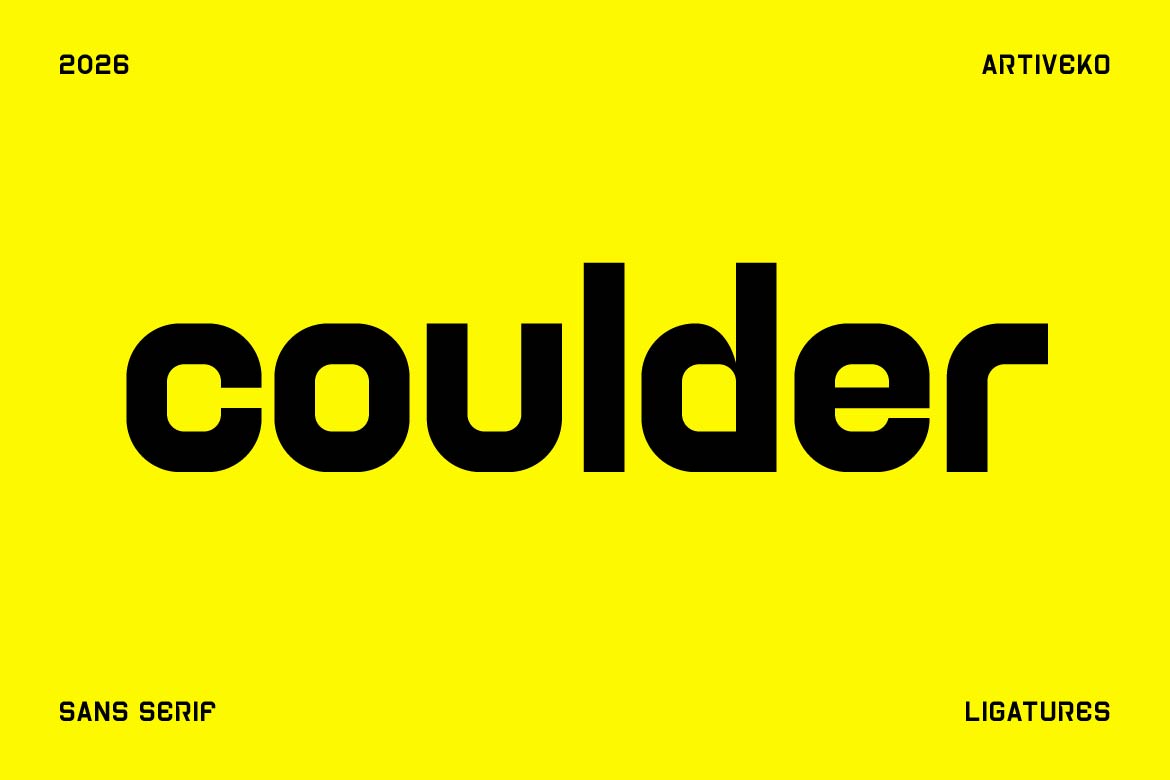
- Coulder – Clean Creative Font for Visual Identity & Design
Coulder is a modern creative sans serif typeface designed to bring fresh energy and clarity to contemporary design. With clean structure, balanced proportions, and subtle character details, Coulder offers a perfect blend of professionalism and creative personality.
This font works beautifully for branding, logos, visual identity, packaging, posters, social media graphics, and modern digital design. Its versatile style allows designers to create bold headlines, clean layouts, and distinctive brand visuals with ease.
Whether used for creative studios, startups, lifestyle brands, or marketing campaigns, Coulder delivers a confident and modern typographic voice that stands out across both print and digital platforms.
Coulder isn’t just a font — it’s a creative tool for modern visual storytelling.